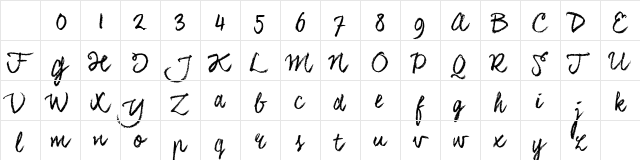
Complete CoalhandLukeTRIAL glyph index. Displaying only characters natively supported by CoalhandLukeTRIAL font.
CoalhandLukeTRIAL flows with the natural rhythm of handwritten lettering, making it ideal for designs that call for warmth and personal expression.
Font Pairing: Combine CoalhandLukeTRIAL with a simple geometric sans for maximum contrast - the tension between flowing curves and clean structure is a classic typographic pairing.
Pro Tip: Use CoalhandLukeTRIAL for short runs of text - names, titles, or taglines. Extended body copy in script faces tires the eye quickly.